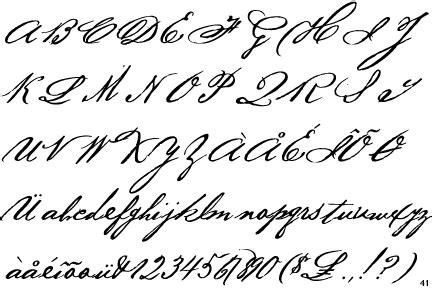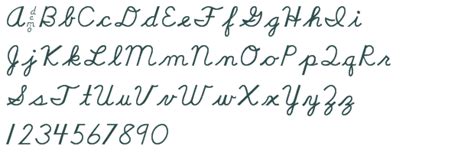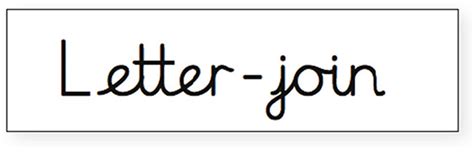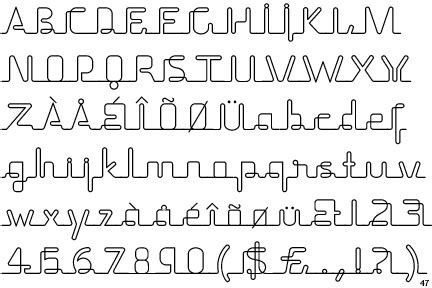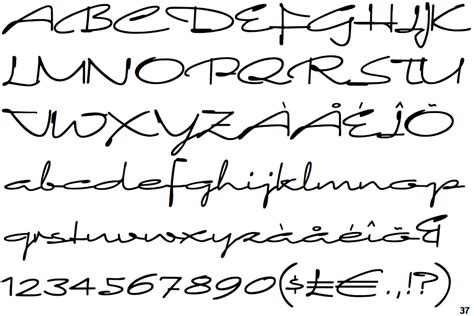
Home › Free Update › Joined Up Handwriting Font : SCHOOLS, TEACHERS - There's a point in text being seen as text, yet the styles vary, just like computer fonts do.
Joined Up Handwriting Font : SCHOOLS, TEACHERS - There's a point in text being seen as text, yet the styles vary, just like computer fonts do.. Handwriting fonts add human touch wherever they're used. Once you've finished practising learn more about the origins of the 'biro' here. Craft a personalized note with one of these amazing handwritten fonts below. 10.00 click for more information about this rating. Licensed for personal and commercial use.
I need a font (preferably with bold and italic options) that is like handwriting and all the letters must join up, even if they are in capitals. Craft a personalized note with one of these amazing handwritten fonts below. Download 10,000 fonts with one click for $19.95. Antio greek font + prokopis font bonus is a cute duo font. The best selection of handwriting fonts for windows and macintosh.
There's a point in text being seen as text, yet the styles vary, just like computer fonts do. Cursive handwriting fonts are essentially the calligraphy of the digital age: You can customize your experience with live font previews. Luckily, we've come up with a simple, but effective tutorial. There are a lot of ways to turn your handwriting into a font, but this is hands down the easiest way. The victor handwriting font has a truly handwritten feel; Create as many fonts as you like. Writing fonts include both printing and cursive styles and is less artistic than formal calligraphy.
Writing fonts include both printing and cursive styles and is less artistic than formal calligraphy.
Browse by alphabetical listing, by style, by author or by popularity. Handwriting, not printing, is the one activity that we can perform that fully engages our brains. 8.05 click on the stars to rate this fontstruction. You can call it cursive or joined up, but you've got to do it! Give it a try—it only takes a click to unsubscribe. Craft a personalized note with one of these amazing handwritten fonts below. Archive of freely downloadable fonts. Some will be separate characters and others will be so close. There are a lot of ways to turn your handwriting into a font, but this is hands down the easiest way. And it will probably be unoriginal like your last name or something. Once you've finished practising learn more about the origins of the 'biro' here. How to get your handwriting as a font for free: Best free script handwriting fonts | wild side design co.
Sign up as a new user. Create as many fonts as you like. And it will probably be unoriginal like your last name or something. 8.05 click on the stars to rate this fontstruction. You can call it cursive or joined up, but you've got to do it! You will not find a handwriting font with bold and italic variants because script is considered italic already. I need a font (preferably with bold and italic options) that is like handwriting and all the letters must join up, even if they are in capitals. Saves an individual's handwriting and creates a font.
There are many free font sites where you can find professional handwritten fonts for your need.
And it will probably be unoriginal like your last name or something. I'd love to make your handwriting into a font! Drop in joins link to oval letters that go in an anticlockwise direction. Royalister signature font is a signature handwriting font. In my earlier post on font creation tools, i wrote about fontifier, an online tool that lets you create truetype font (ttf) from your handwriting.
Download free handwritten fonts for commercial and personal use. In my earlier post on font creation tools, i wrote about fontifier, an online tool that lets you create truetype font (ttf) from your handwriting. Antio greek font + prokopis font bonus is a cute duo font. There are many free font sites where you can find professional handwritten fonts for your need. You will not find a handwriting font with bold and italic variants because script is considered italic already. Craft a personalized note with one of these amazing handwritten fonts below. No sign up required to create the font. This handwriting font is available in two styles:
Handwriting fonts are written with a pen, pencil, or marker. In the age of social media and smartphones, probably, there are people, who have never heard about handwritten letters. Print this template and fill out all of the little squares. You will not find a handwriting font with bold and italic variants because script is considered italic already. Royalister signature font is a signature handwriting font. How to get your handwriting as a font for free: Handwriting fonts bring a new artistry to fonts, as they are actually based on people's individual handwriting. The victor handwriting font has a truly handwritten feel; You can customize your experience with live font previews. Browse a unique collection of the best handwritten fonts and thousands of free typefaces to download. Atakana handwriting font script by afkari studio kanatype.com. Download and install free handwritten fonts of the best quality from free fonts and use on your own personal and business related design purposes. Handwriting fonts add human touch wherever they're used.